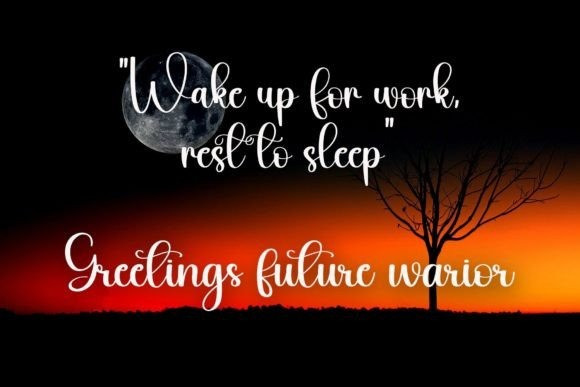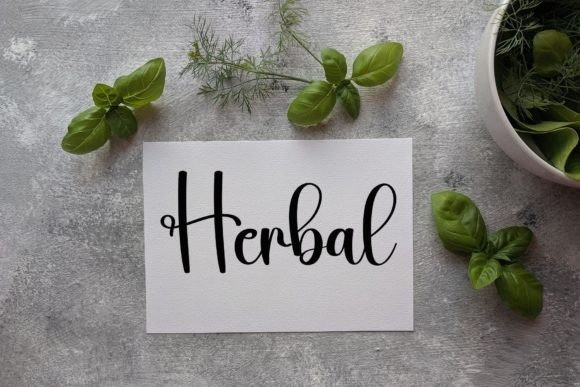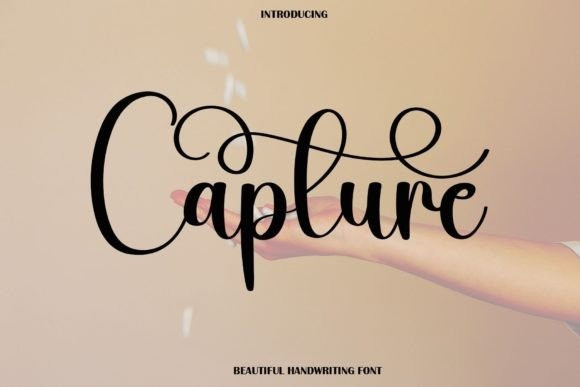
Capture Font
Capture Font is a delicate and well-rounded handwritten font, perfect for crafty projects that need authentic typography! Use it for wedding invitations, birthday cards, personal branding, elegant logos, or more.